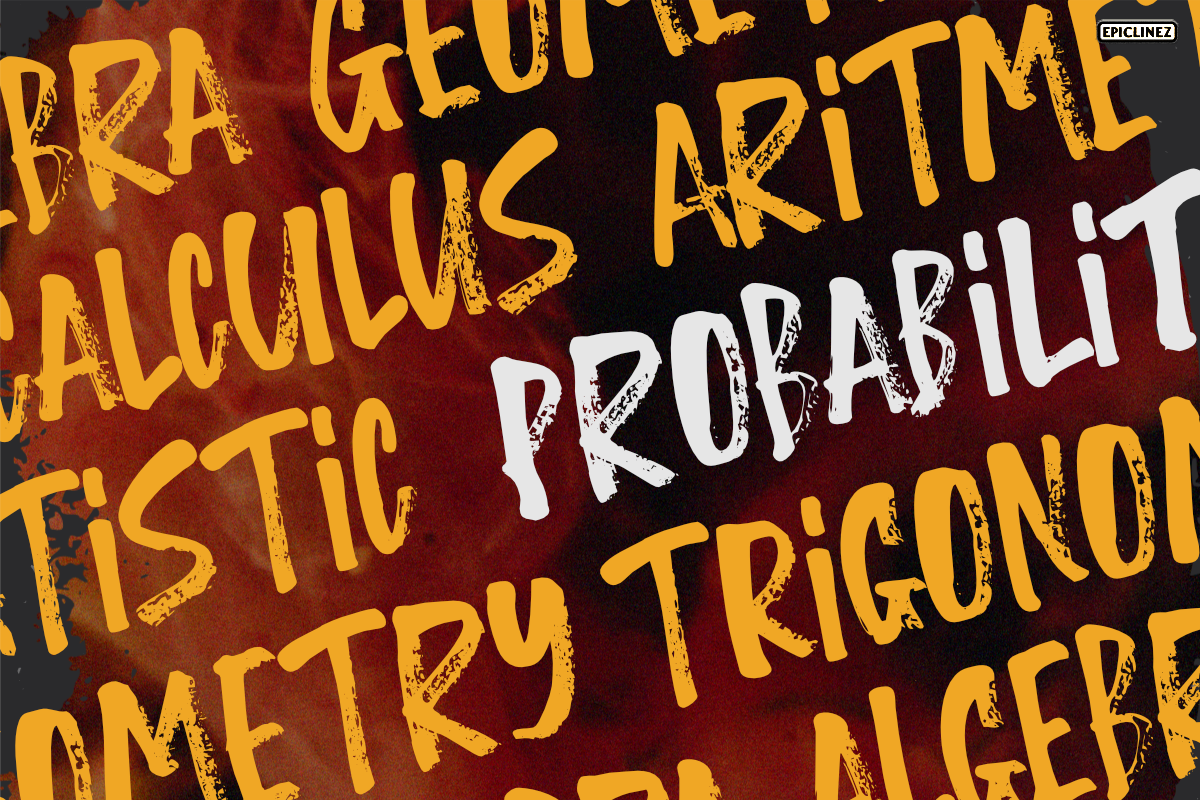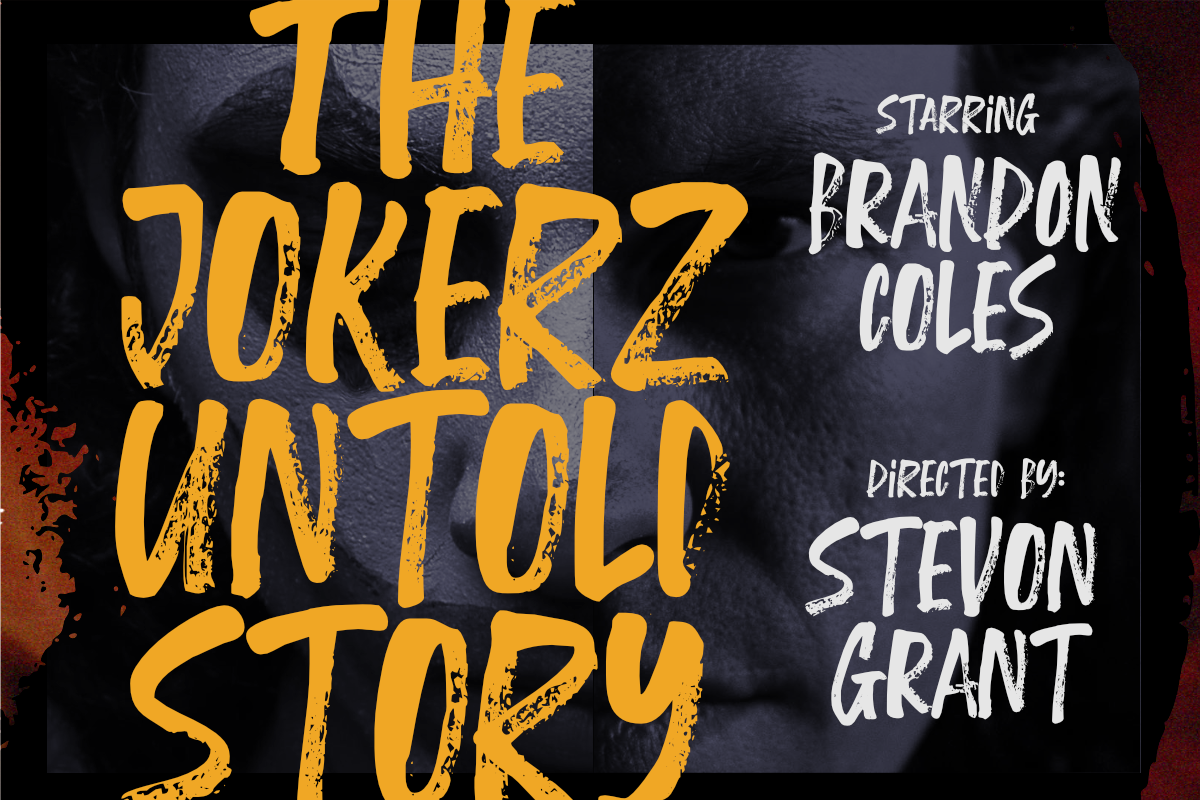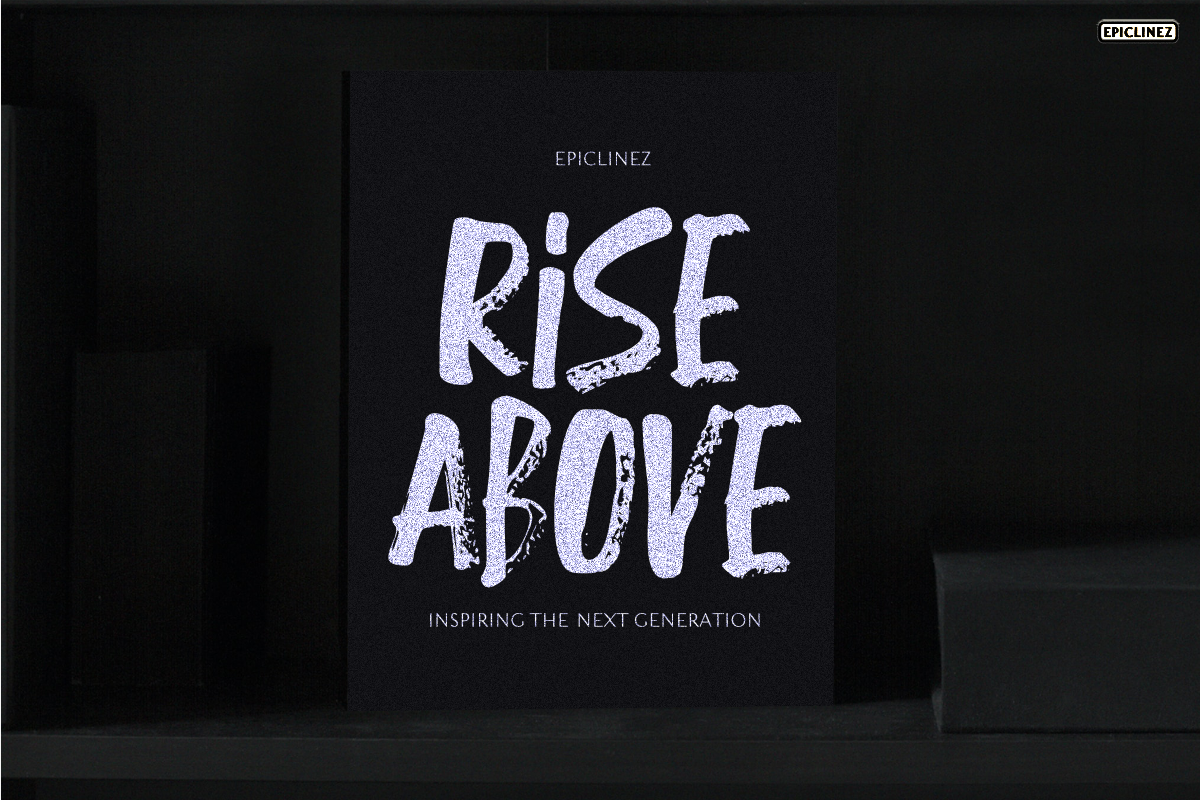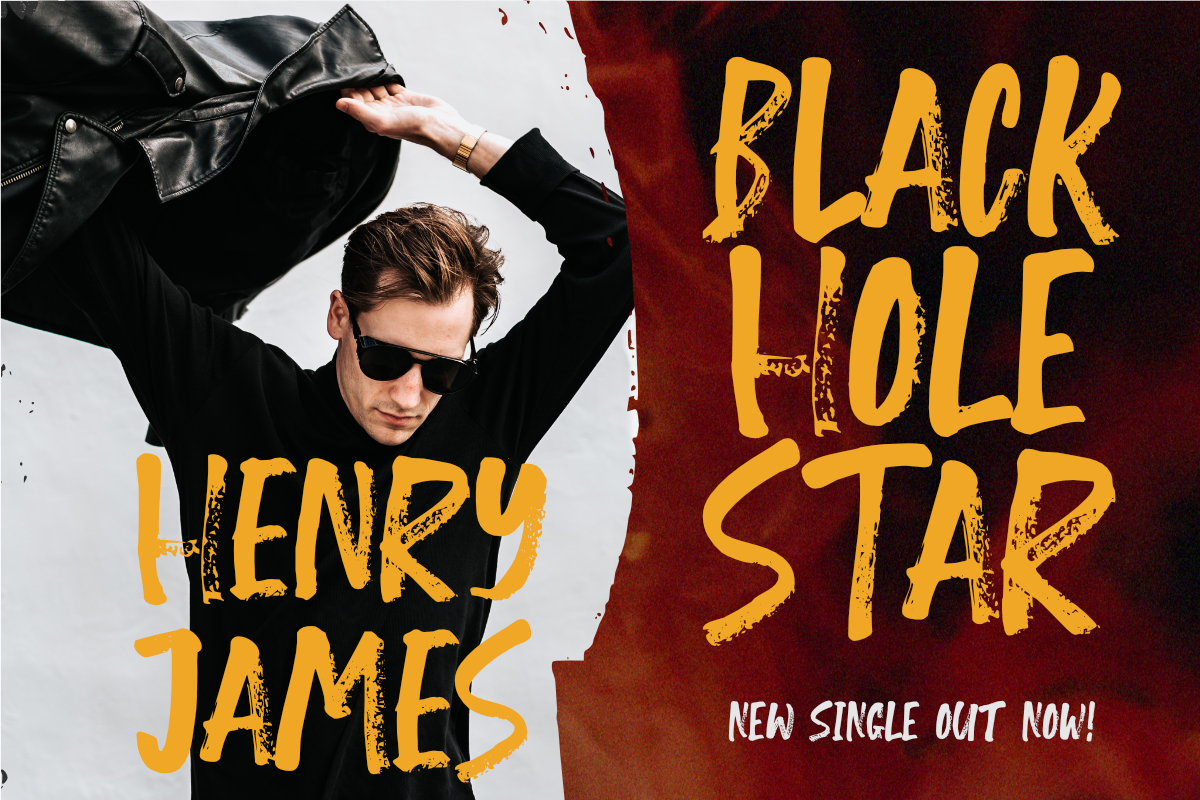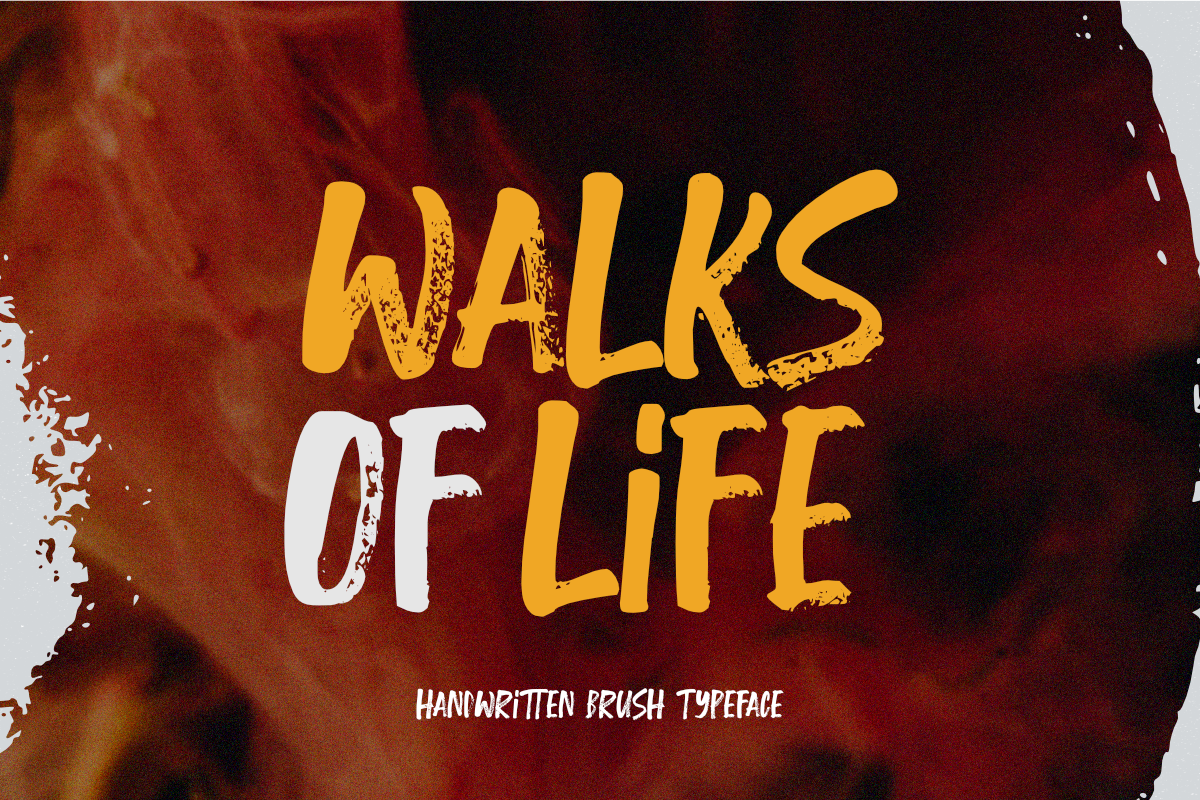
Walks Of Life | Brush Typeface
Walks Of Life is a raw brush typeface. Its cool and organic texture is carefully handcrafted to straight away grab the attention of the viewers. Suitable if use for logos, posters, headlines, brandings, apparel, etc.